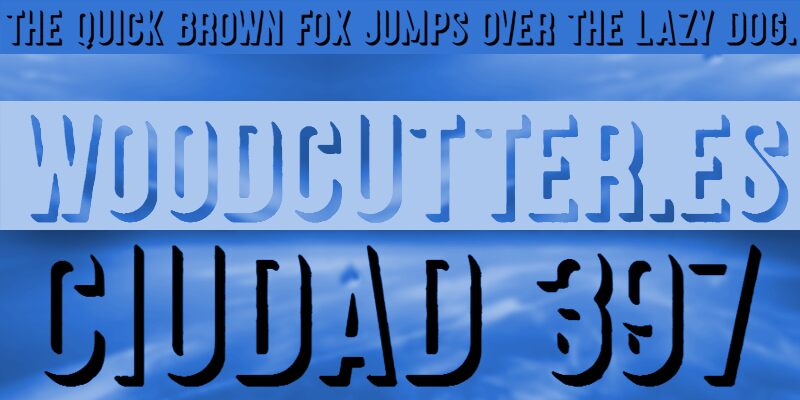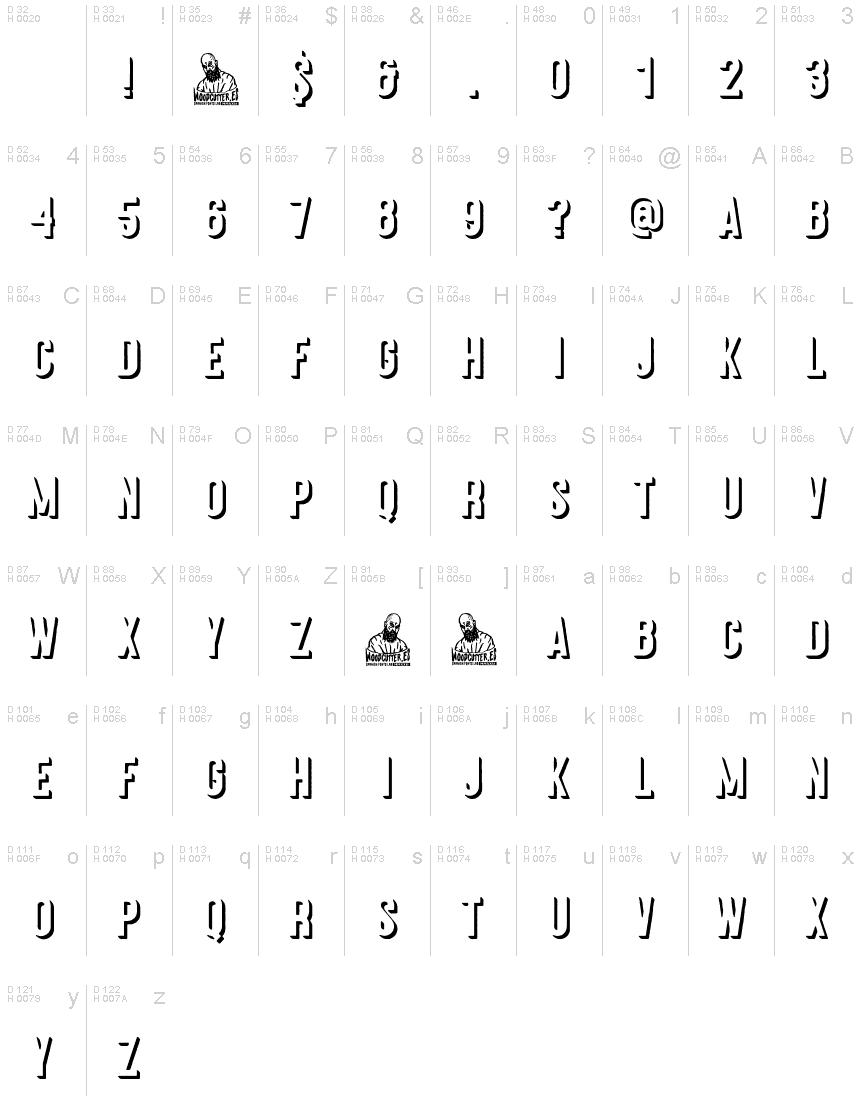
Ciudad 397
Ciudad 397, designed by Woodcutter, is a captivating display font that adds depth and dimension to any project.
With its bold 3D style, this font is perfect for creating eye-catching headlines, logos, and posters that demand attention. Its extra-condensed width allows for maximum impact in limited spaces. Use Ciudad 397 to bring a sense of modernity and sophistication to your designs. Whether you're working on branding for a tech startup or designing a cutting-edge magazine cover, this font will ensure your project stands out from the crowd.
Ciudad 397.